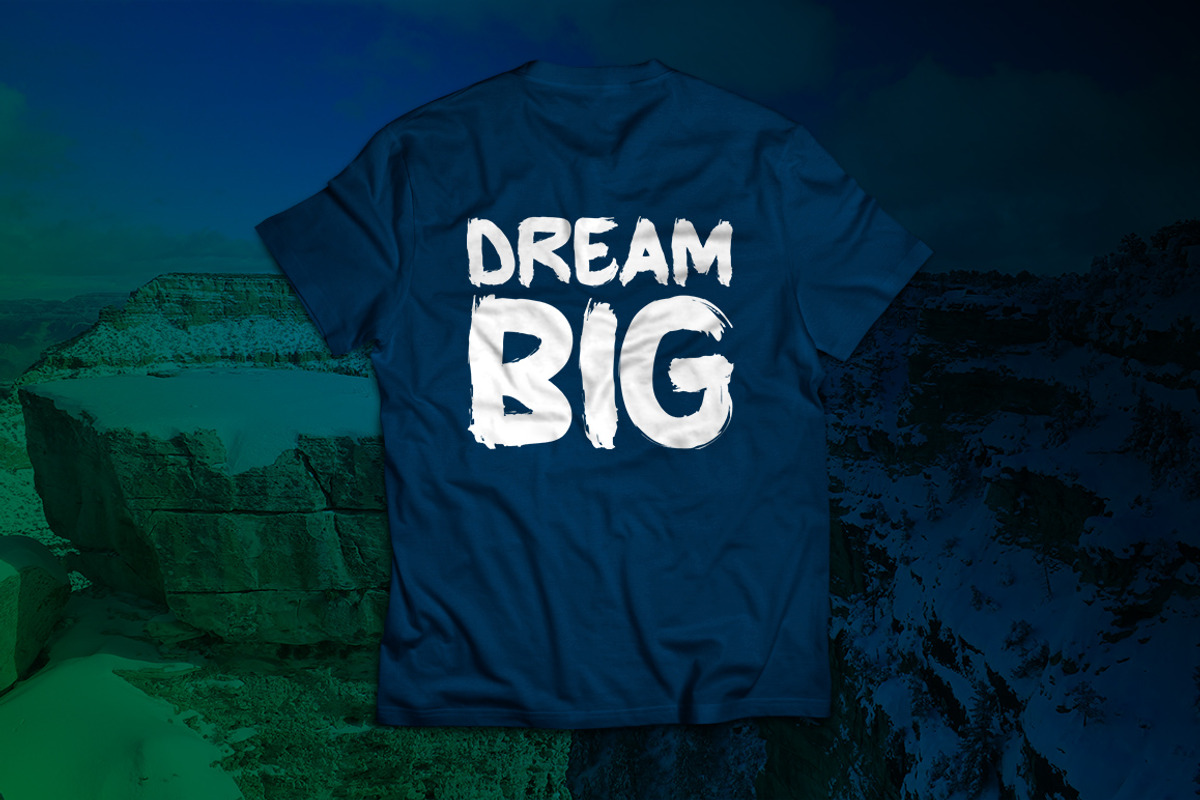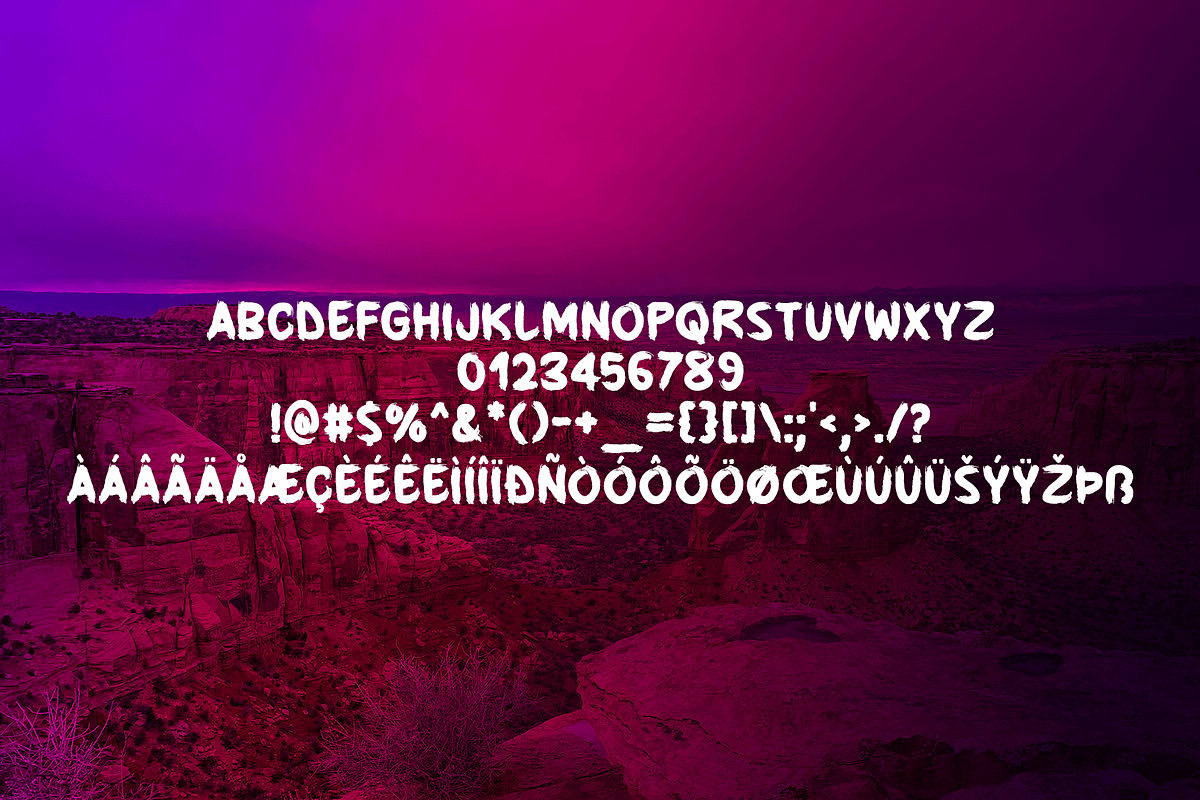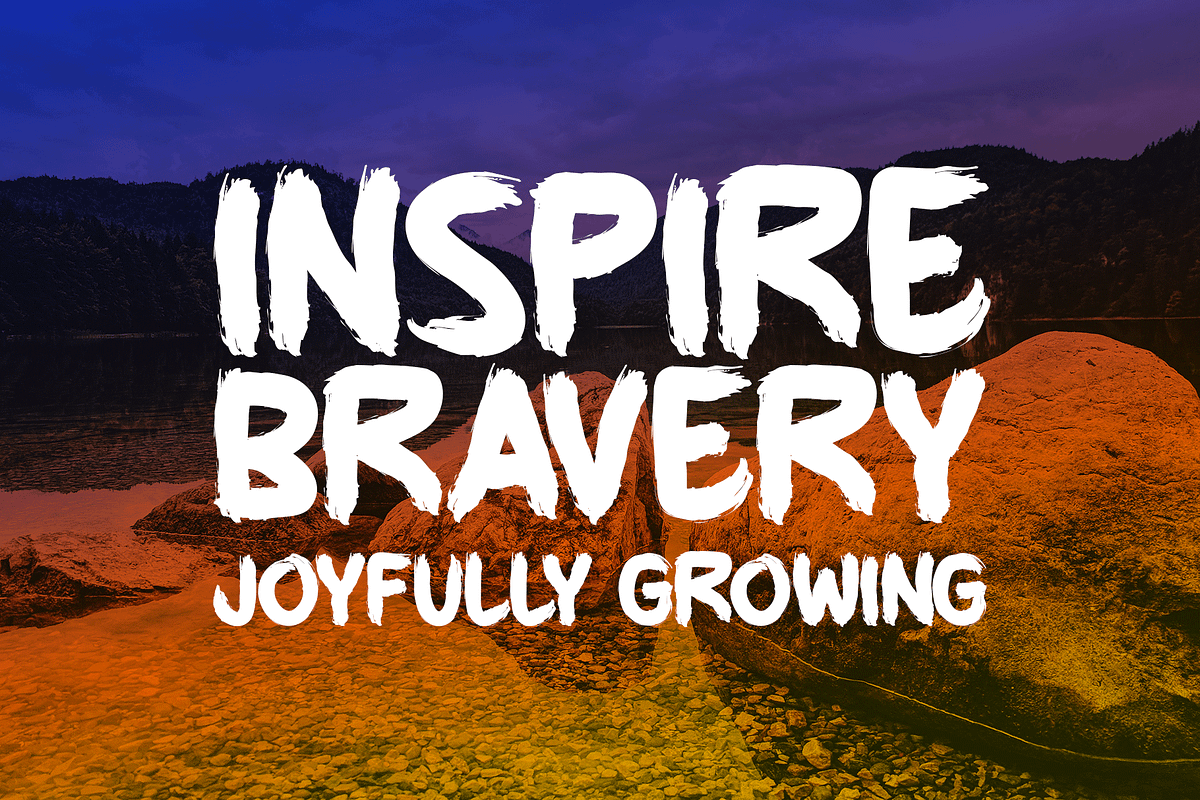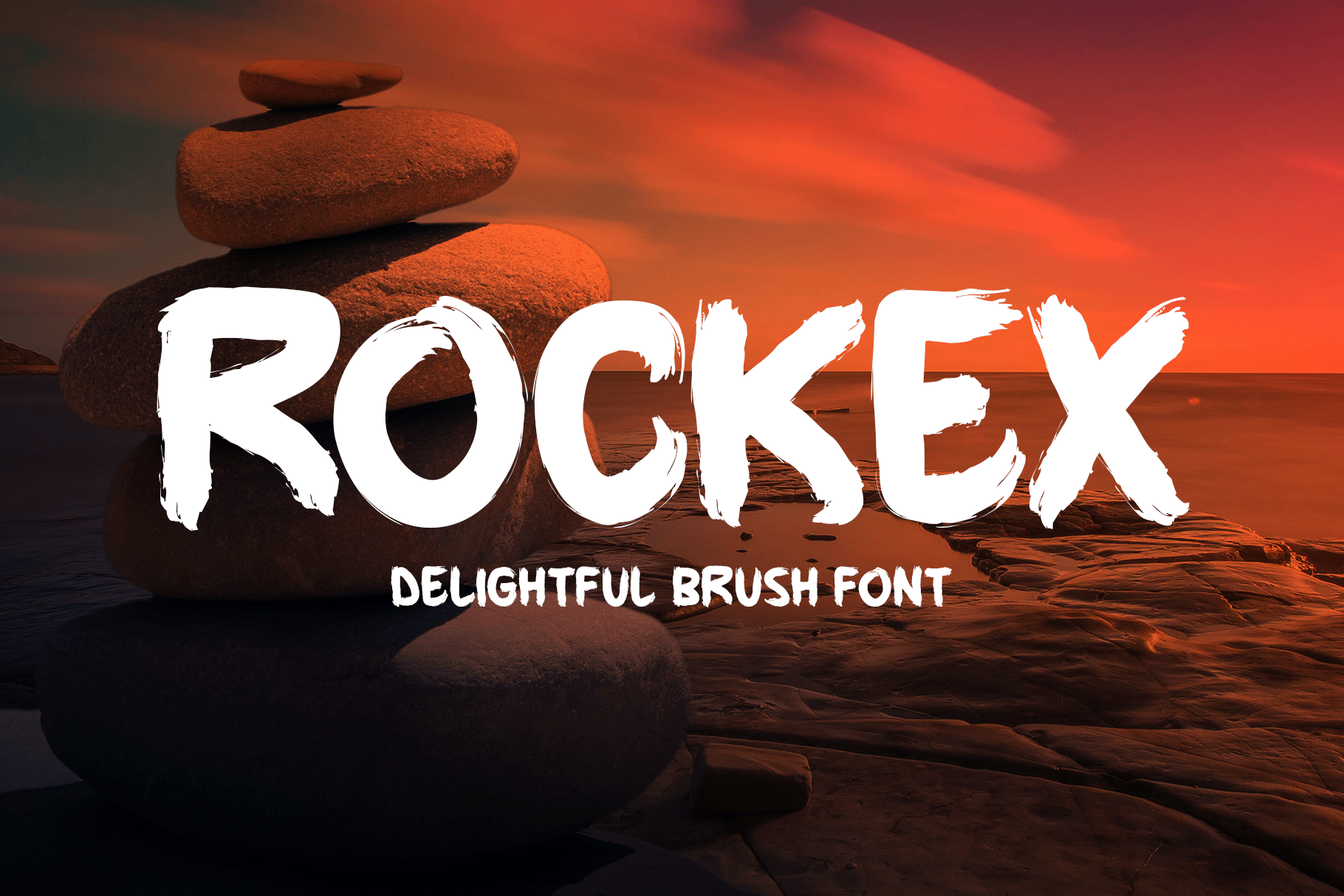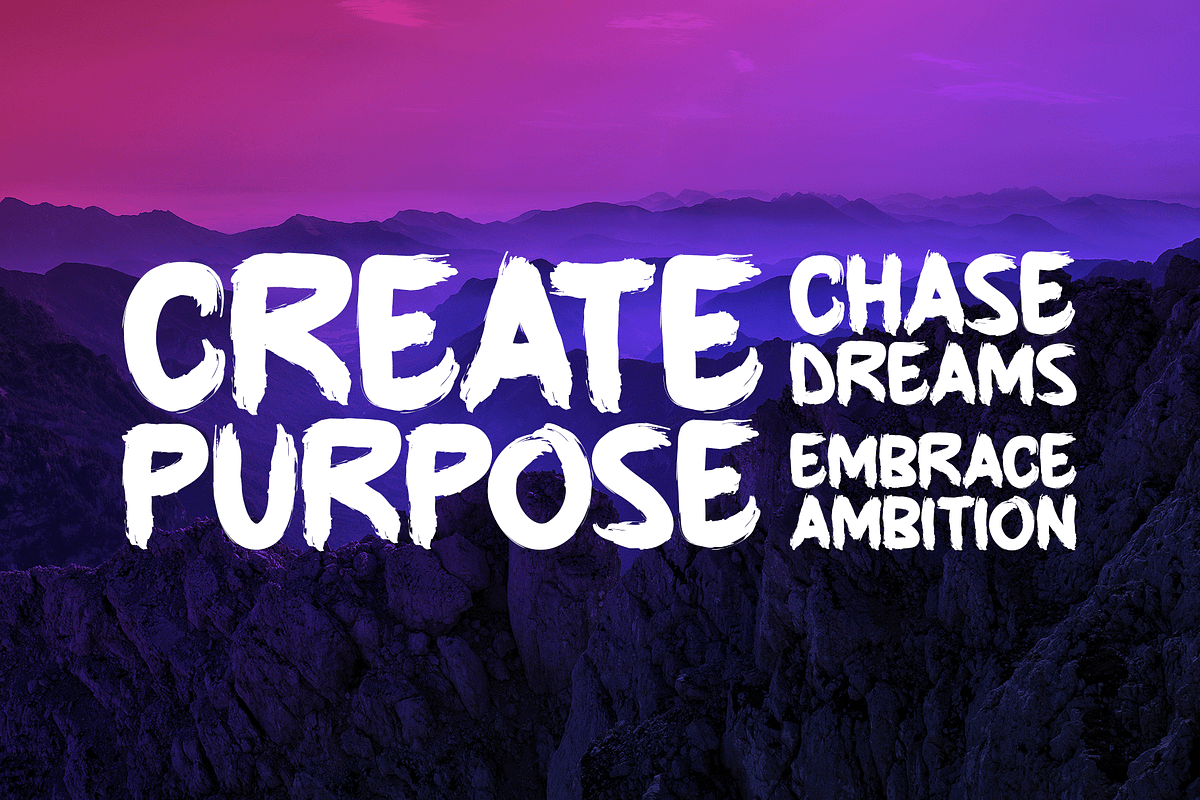
Rockex Typeface
Introducing Rockex!
Rockex is an expressive brush-style font that blends bold strokes with a naturally handcrafted charm. Its energetic movement and artistic texture make it an excellent choice for a wide variety of creative projects, including logos, stationery, t-shirts, posters, music covers, flyers, website headers, and print designs. Whether you’re aiming for a dynamic, edgy look or a warm hand-painted feel, Rockex brings character and visual impact to every design.